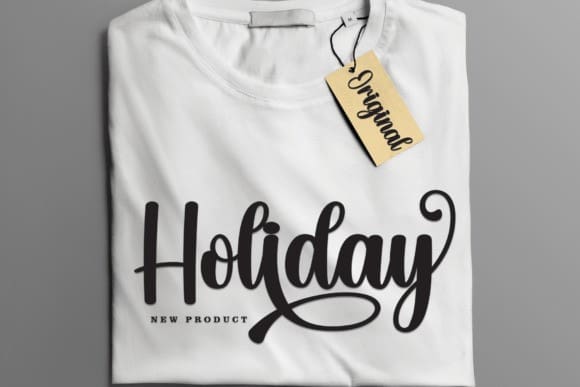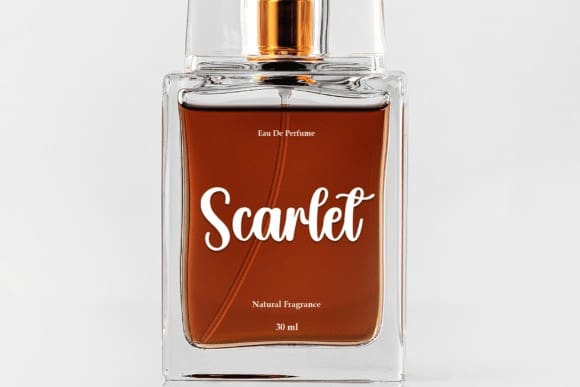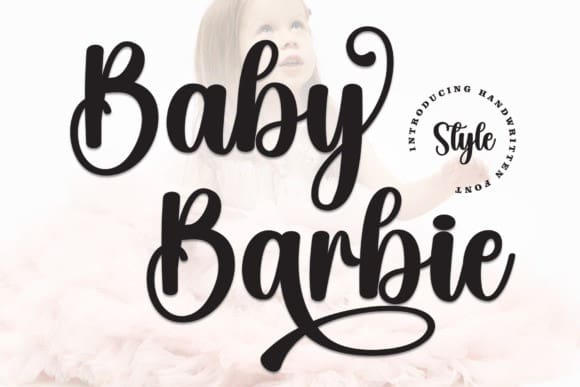
Baby Barbie Typeface
Baby Barbie Typeface , The font’s ornate design and intricate details make it stand out from other fonts, giving it a sense of luxury and sophistication. Its flowing lines and bold strokes also give it a sense of movement and energy, making it a dynamic choice for any design project.